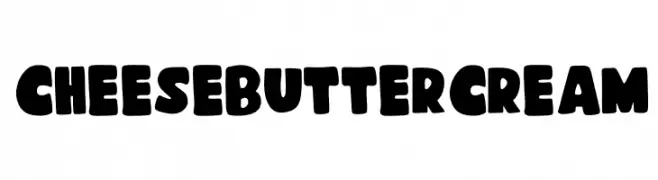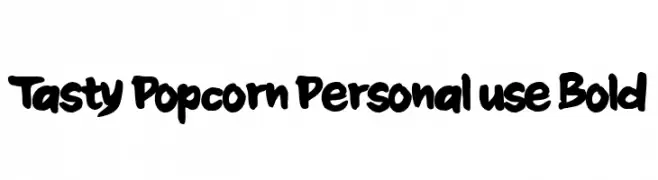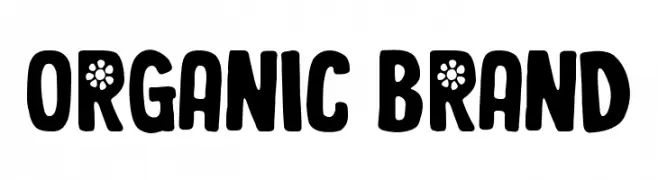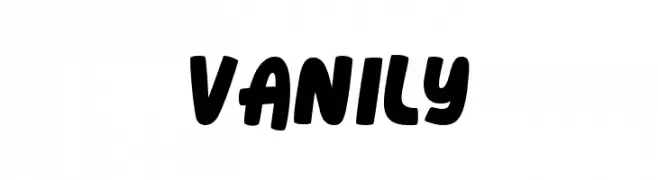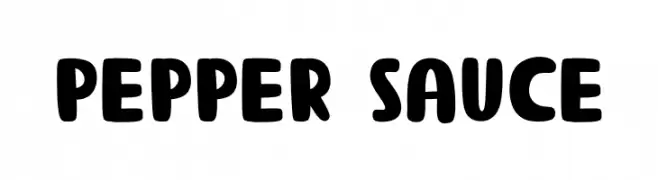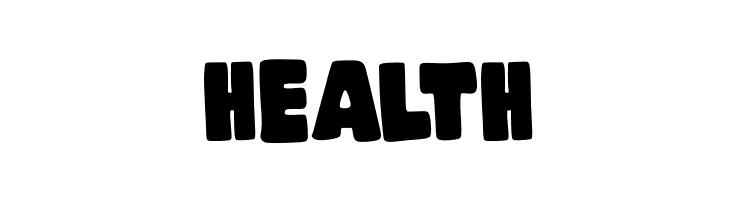
( Fonts by Fontsera )
A bold, rounded font with a playful and friendly style.
( Fonts by Kurnia Setyadi )
A bold, playful typeface with thick, rounded characters and a hand-drawn feel.
A playful, bold font with a hand-drawn, comic-style appearance.
( Fonts by Kurnia Setyadi )
A playful, handwritten font with bold, rounded characters and a whimsical style.
( Fonts by Supersemar Letter )
A playful, handwritten font with tall, narrow letters and decorative elements.
( Fonts by imagex )
A bold, playful font with rounded letterforms and a cohesive design.
( Fonts by Kurnia Setyadi )
A bold, playful font with rounded, hand-drawn characters.
( Fonts by Kurnia Setyadi )
A bold, playful font with rounded edges and a friendly appearance.
( Fonts by Kurnia Setyadi )
A playful, bold font with rounded characters and a retro charm.
( Fonts by Pollux of Geminorum )
A bold, playful handwritten font with rounded, thick strokes.